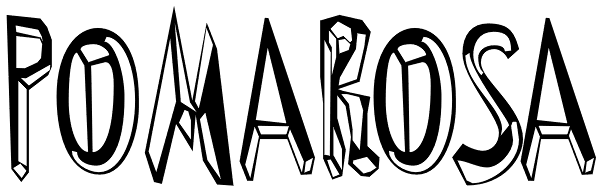
Pomarosa
Pomarosa is a typographic family that consists of capital roman letters and twisted lower case letters set randomly. Each one of them is characterized by its multiple calibers and widths. Pomarosa was planned to accompany graphic works done with...